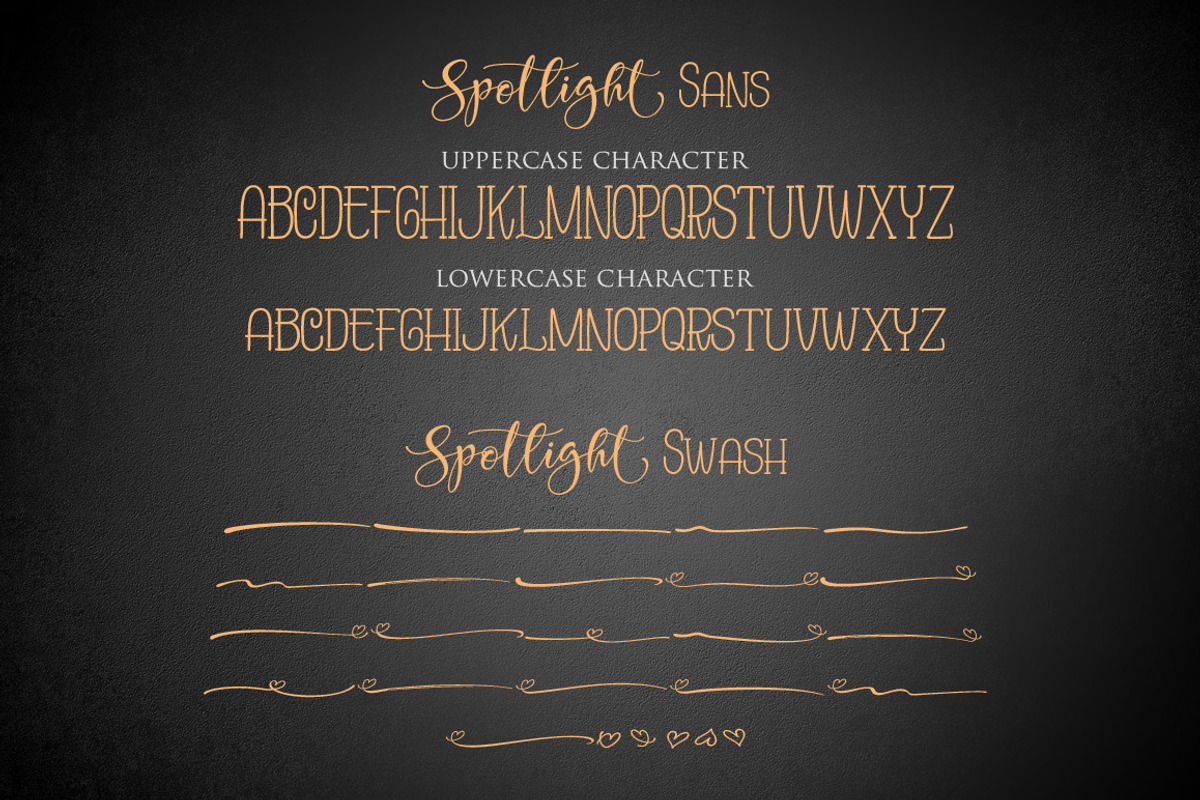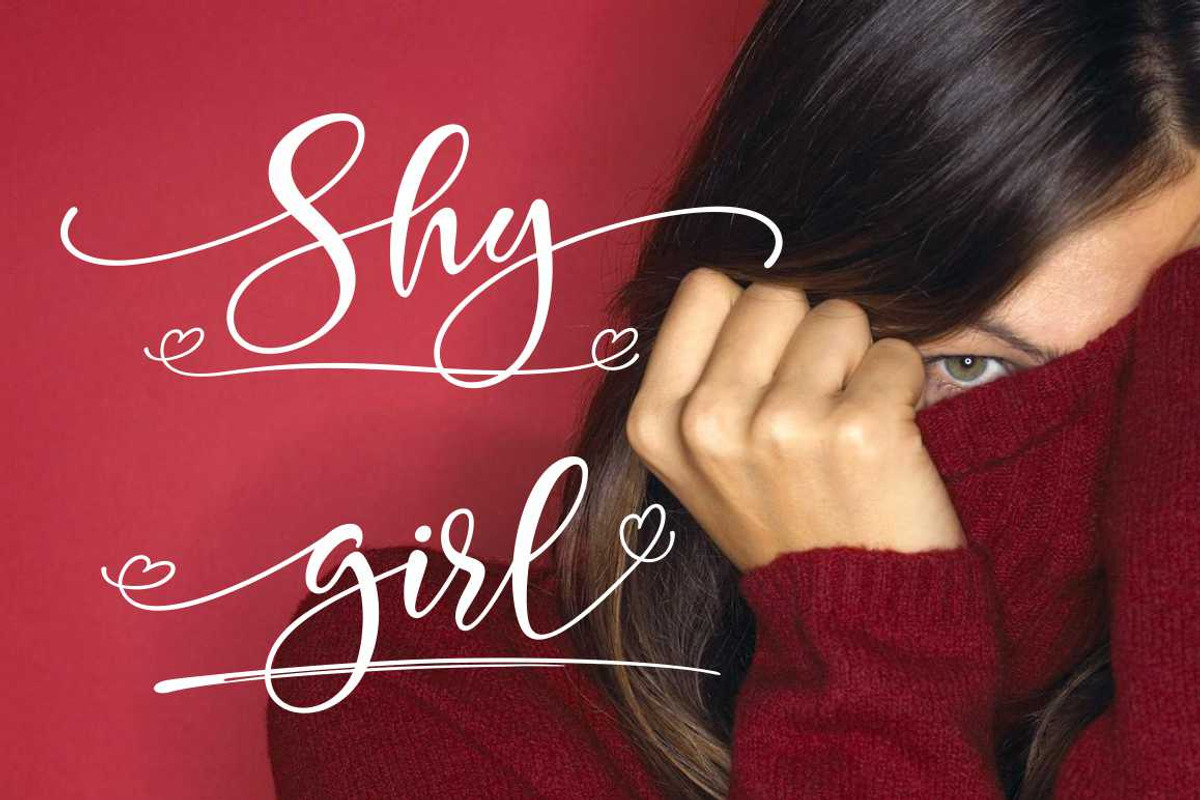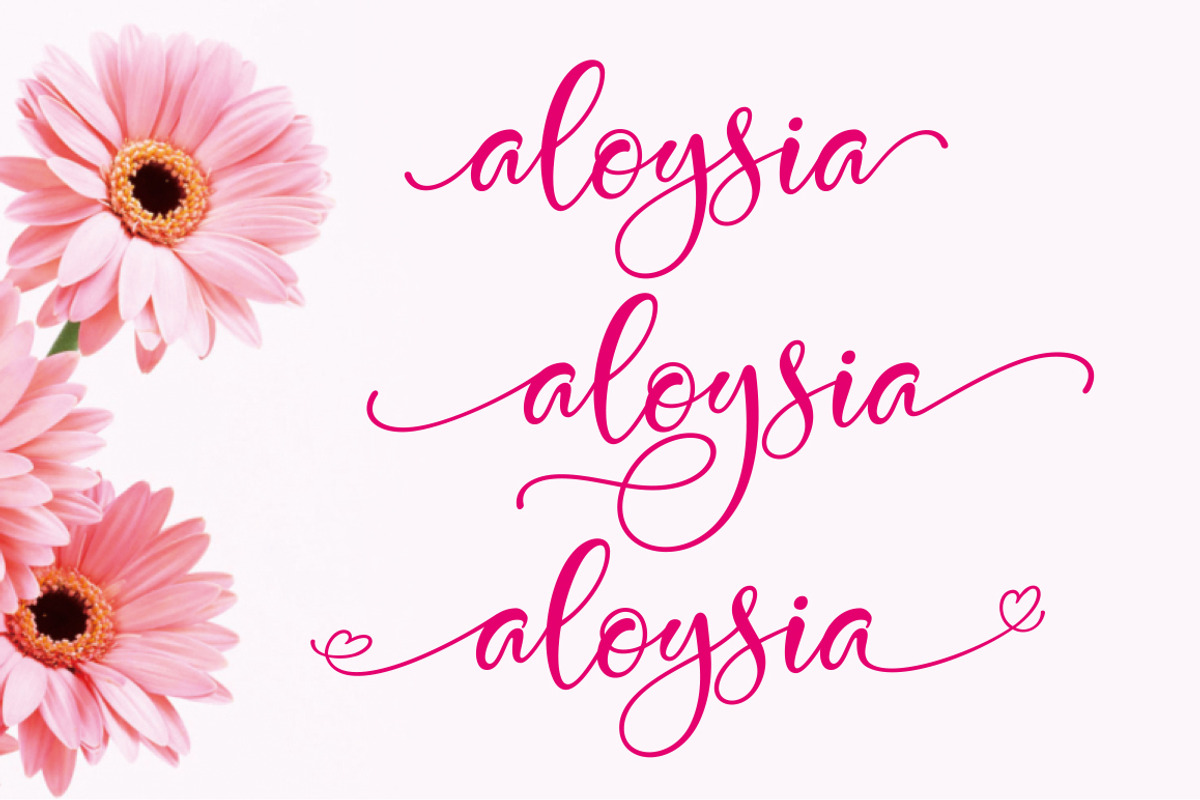
Spotlight
The Spotlight Font is a beautiful modern font that comes with 492 glyphs. It features smooth lines and characters that weld together nicely. The font has a modern calligraphy style and features beautiful swashes. It is easy to read and fun to work with. There is no doubt that you will get professional results with this font and you will be able to amaze your customers.
The Features of this fonts is: Contextual Alternates, Standart ligatures, Stylistic Alternates, Stylistic Sets,
- Features Basic Latin A-Z and a-z Numbers Symbols